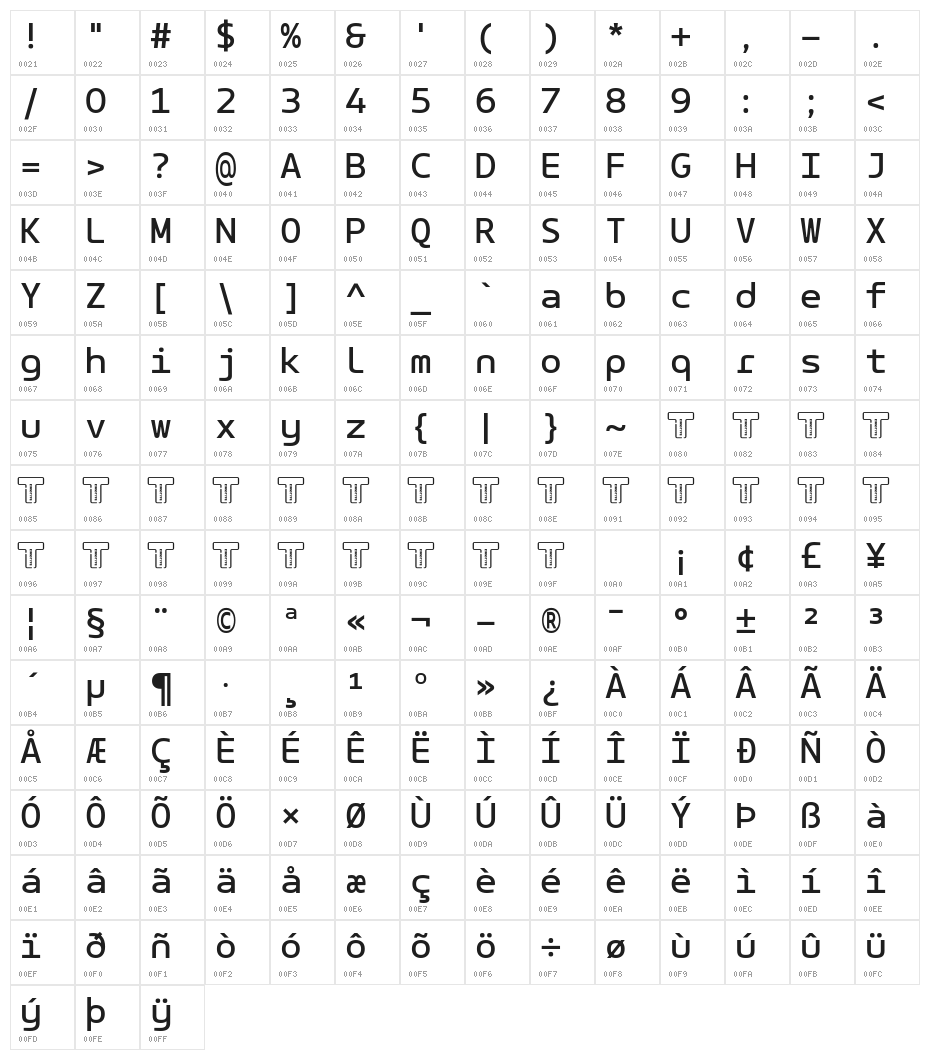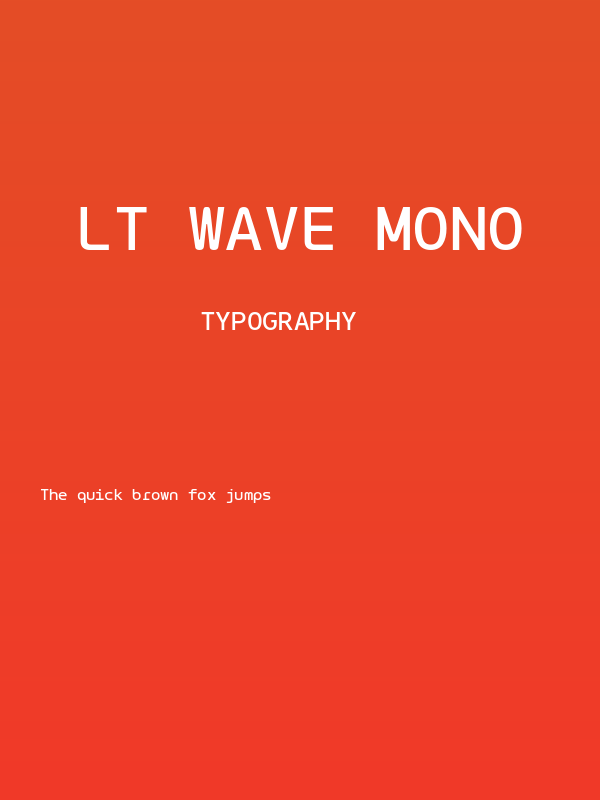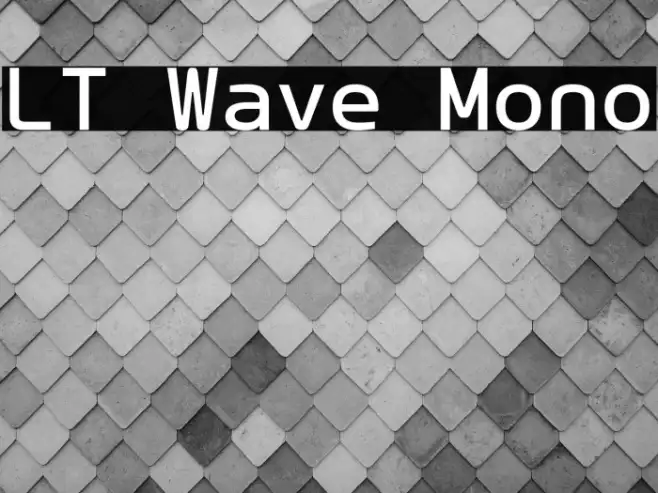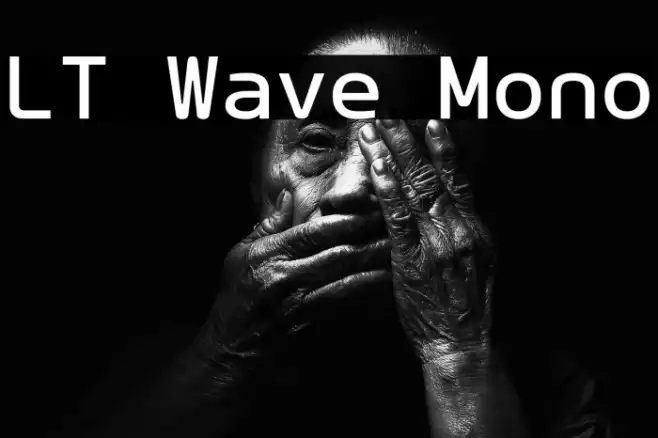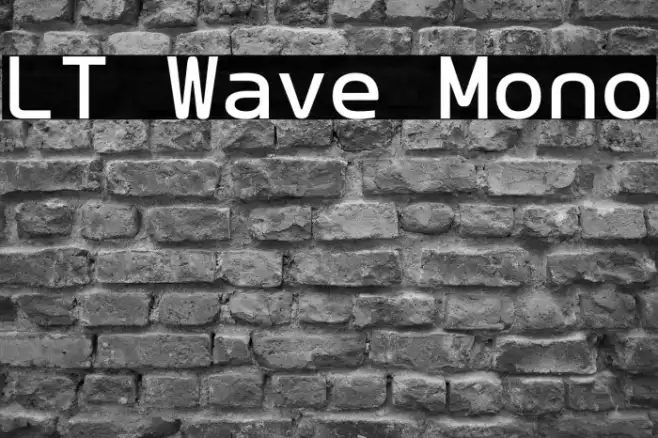
LT Wave Mono Font
LT Wave Mono Description
This monospaced font features a clean and modern design, characterized by uniform character width and a geometric structure. The uppercase and lowercase letters maintain a consistent height, providing a balanced appearance. The numerals are clear and easily distinguishable, making them ideal for coding or data presentation. Special characters are well-defined, ensuring readability across various applications. The overall style is minimalistic, with a focus on functionality and clarity, making it suitable for technical documents and digital interfaces.
| Use Case | Headlines, Body text, Logos, Coding |
| Proposed Projects | Ideal for coding environments, technical documentation, and digital interfaces where clarity and uniformity are essential. |